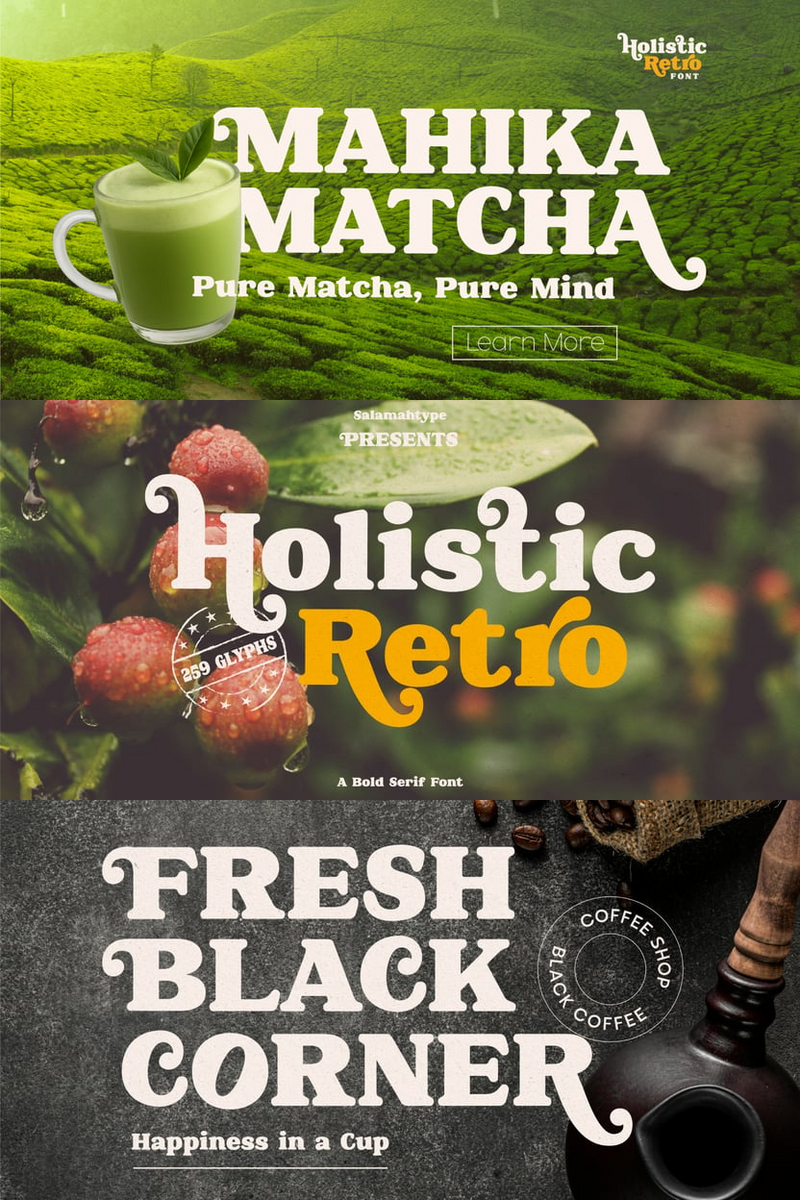
Unlocking Genuine Brand Storytelling for Tech & SaaS: How Holistic Retro's Handcrafted Authenticity Cultivates Deeper Emotional Connection and Visual Impact Across Editorial Layouts, from Engaging Blog Post Headers and Whitepaper Narratives to Thought-Provoking Case Study Spotlights
In a digital landscape often dominated by sleek minimalism and swift automation, how does your Tech or SaaS brand truly stand out? How do you convey innovation not just with functionality, but with genuine soul and a human touch? It’s a common challenge to break through the noise and foster authentic connections in a space that can, at times, feel impersonal. Your mission is to build trust and resonate deeply, not just efficiently.
Enter Holistic Retro, a typeface meticulously crafted to bridge this very gap. Imagine the comforting warmth of a handwritten note, the inviting familiarity of a well-loved vintage design, yet reimagined with a clean, contemporary edge. Holistic Retro isn't merely a font; it’s a character-rich expression, with organic curves and thoughtful imperfections that whisper authenticity. It evokes a feeling of grounded innovation – technology that understands its roots, and a future built with heart.
Your work in Tech and SaaS isn't just about algorithms and features; it's about solving real human problems, empowering users, and building trust. Yet, communicating this depth often falls to generic, uninspired typography that blends into the background. Your brand deserves to convey its unique story from the very first glance. Holistic Retro steps in to transform your messaging, allowing your innovative spirit to shine through with a voice that is both modern and deeply human. It’s about moving beyond mere functionality to forge emotional resonance with your audience, making complex ideas feel approachable and inspiring.
With Holistic Retro, you're not just choosing a typeface; you're investing in a distinct brand personality that differentiates and connects.
- Unparalleled Differentiation: Break away from the sea of generic sans-serifs. Holistic Retro immediately signals a brand that values authenticity, craftsmanship, and a unique, forward-thinking perspective.
- Deep Emotional Connection: Infuse your digital touchpoints with a human warmth that organically builds trust and rapport. It speaks to the user on a more personal level, making your brand feel accessible, relatable, and genuinely caring.
- Enhanced Brand Storytelling: From your website's hero section to in-app messaging, Holistic Retro helps articulate your narrative with a voice that is both professional and genuinely engaging, conveying innovation with a soul.
- Versatile Impact: Designed for clarity while retaining its unique character, it ensures your messages are not just read, but felt, across all your communication channels.
Holistic Retro: Your Digital Story, Authentically Crafted.
Picture Holistic Retro gracing the inviting headlines of your latest blog post, making your thought leadership pieces instantly more engaging and human. Envision it giving a friendly, trustworthy face to your SaaS product's onboarding flow or feature highlights within the UI, guiding users with a comforting hand. It can elevate your social media campaigns, making graphics pop with genuine personality, or provide a grounding elegance to key takeaways in your investor presentations and whitepapers. Even in internal communications, it adds a touch of warmth and approachability, fostering a stronger, more connected company culture.